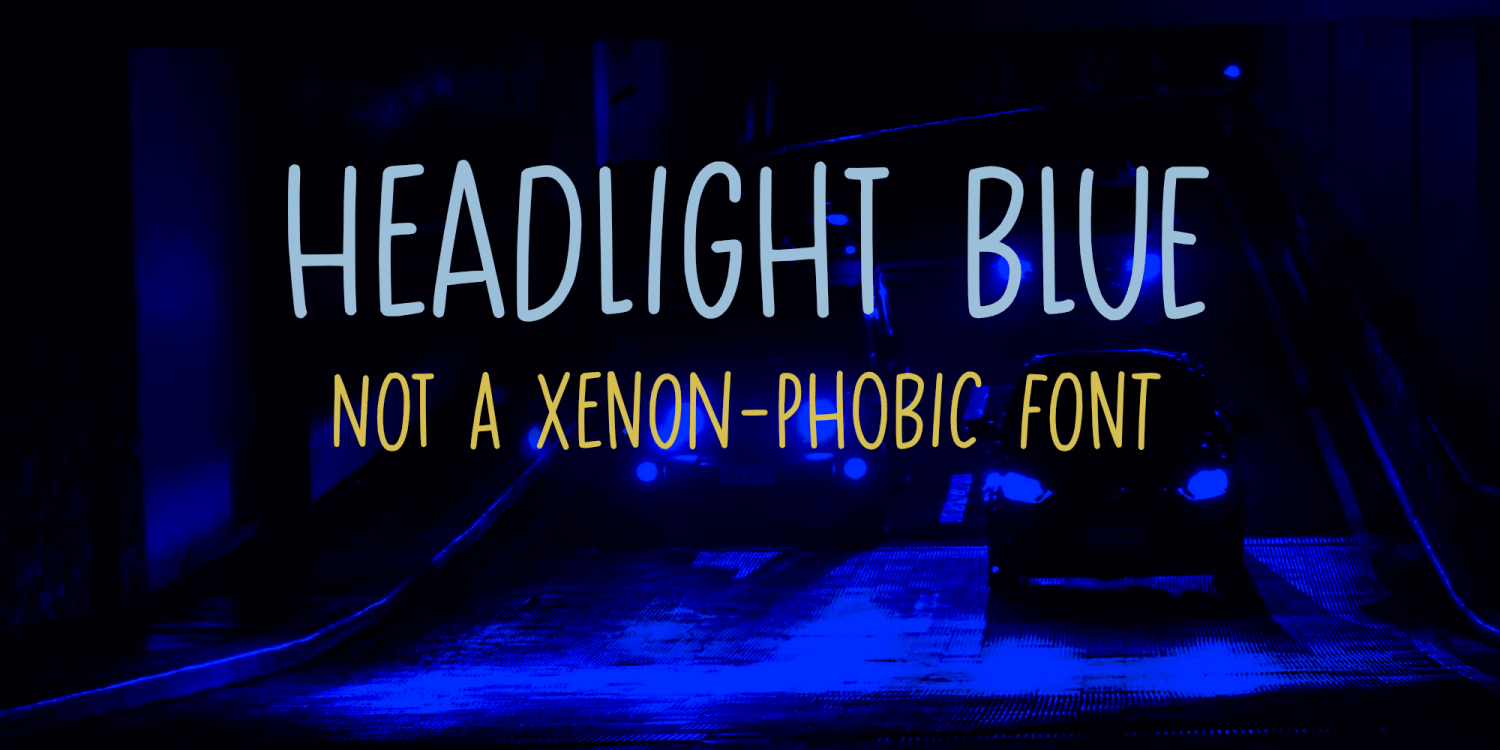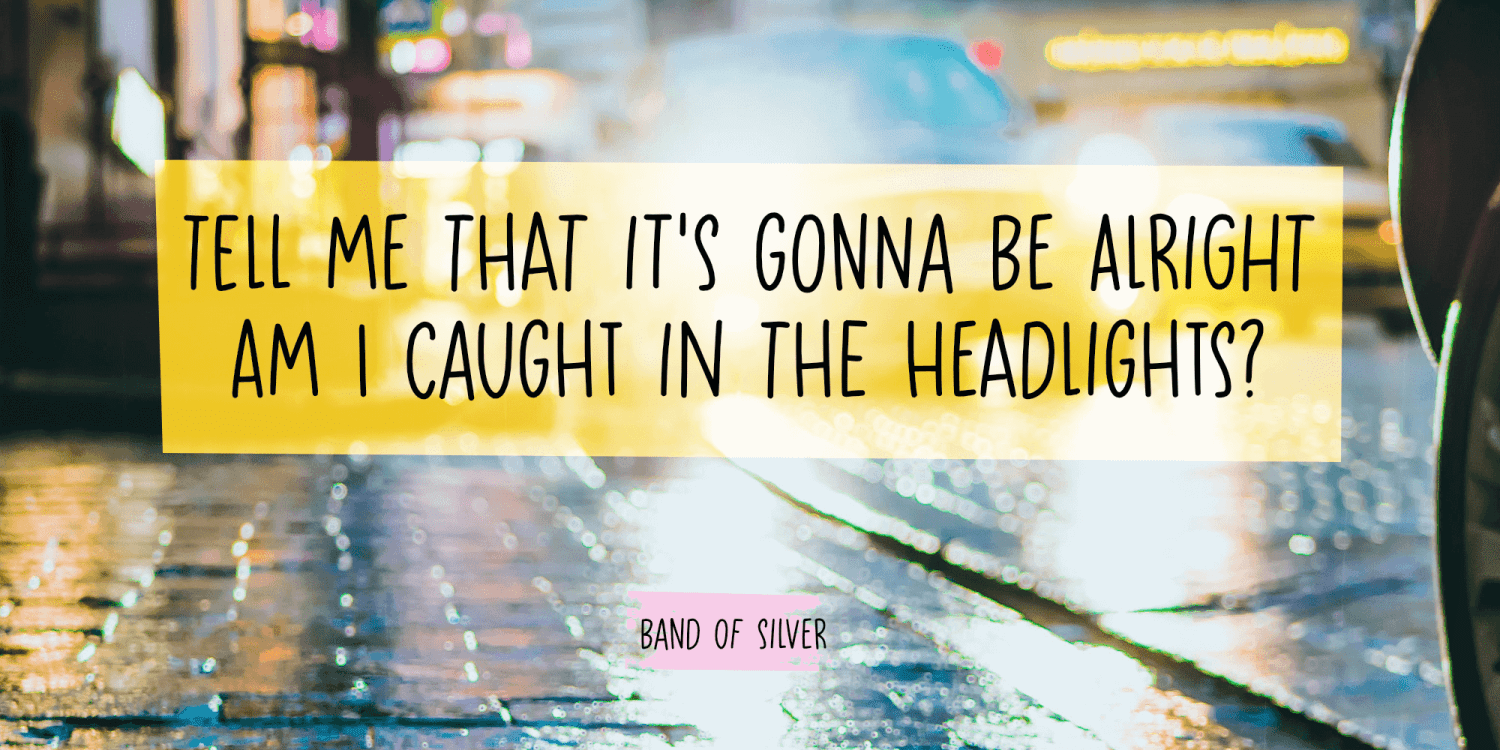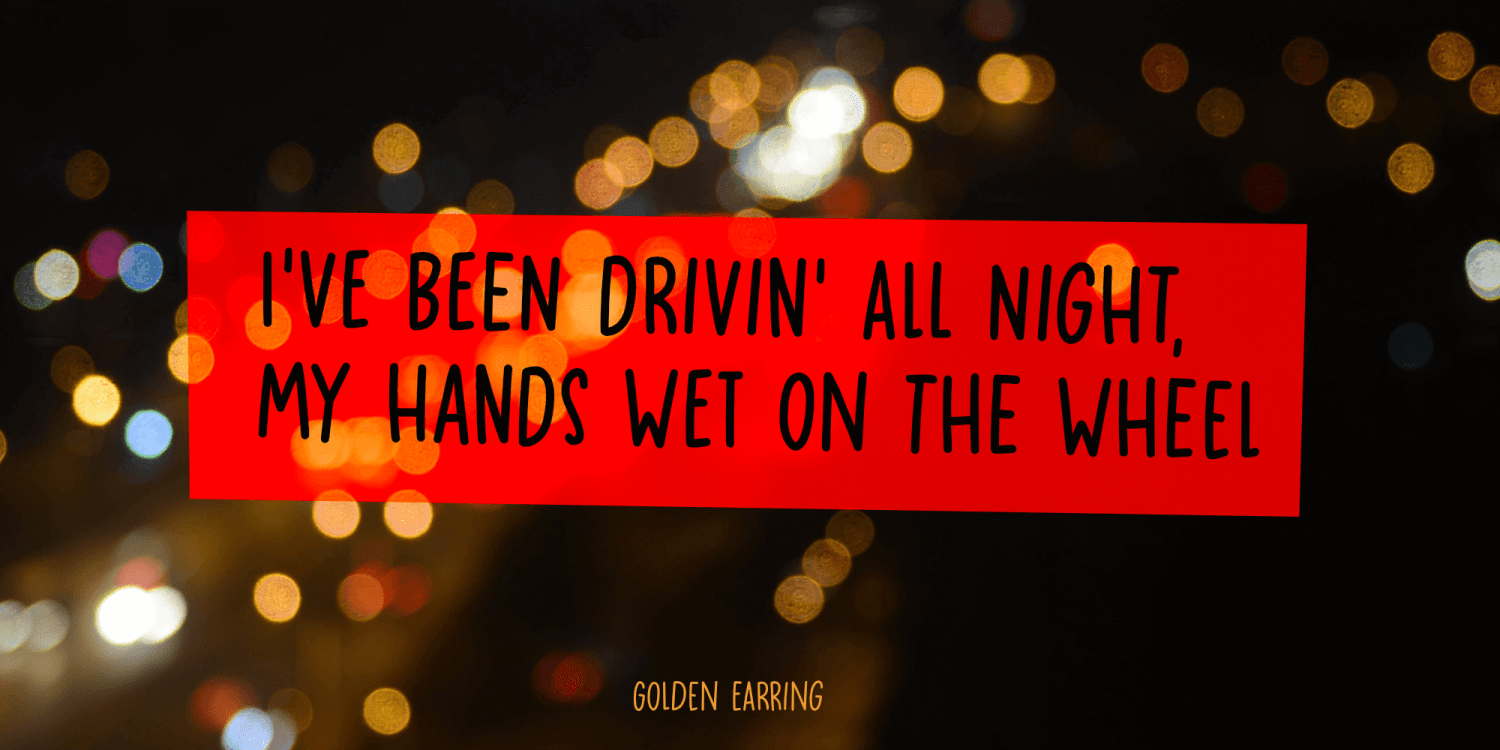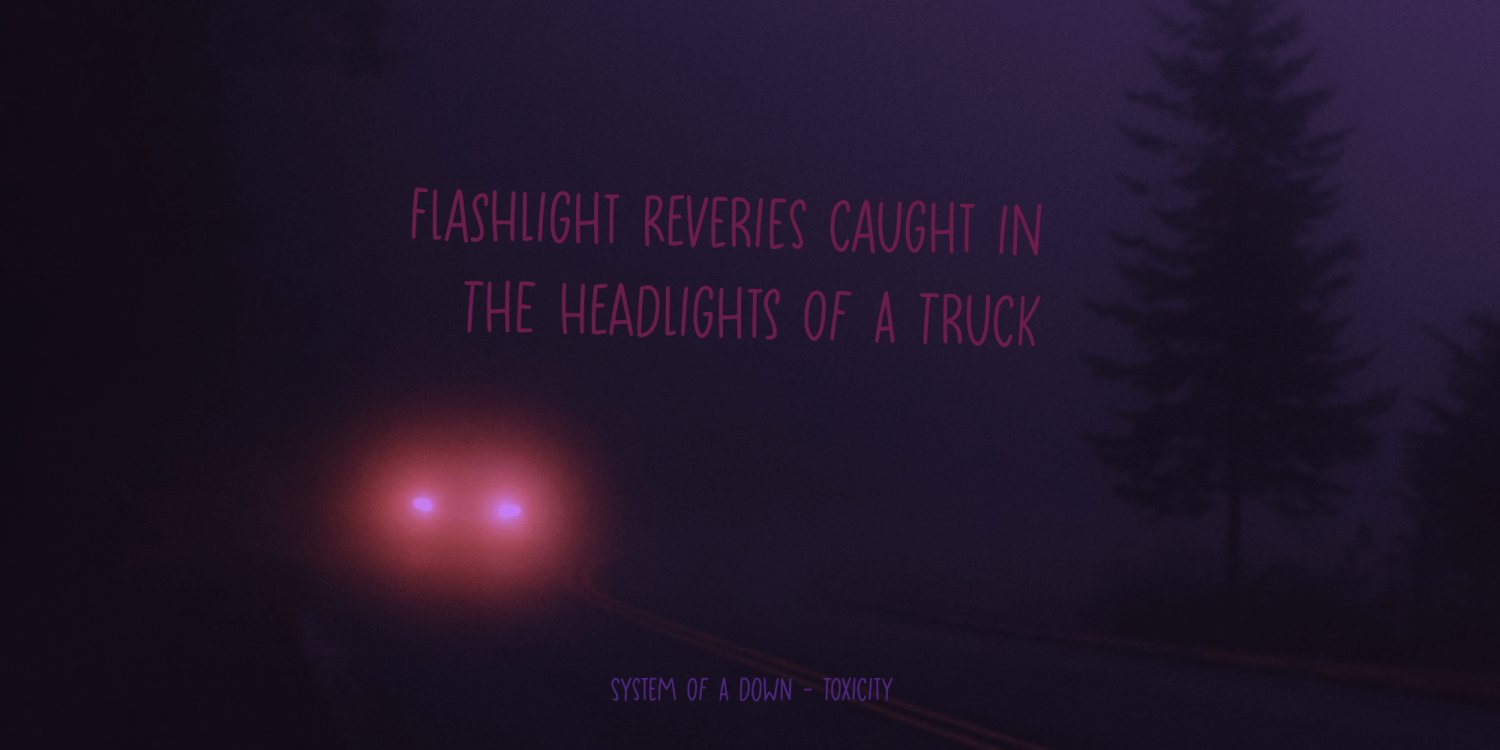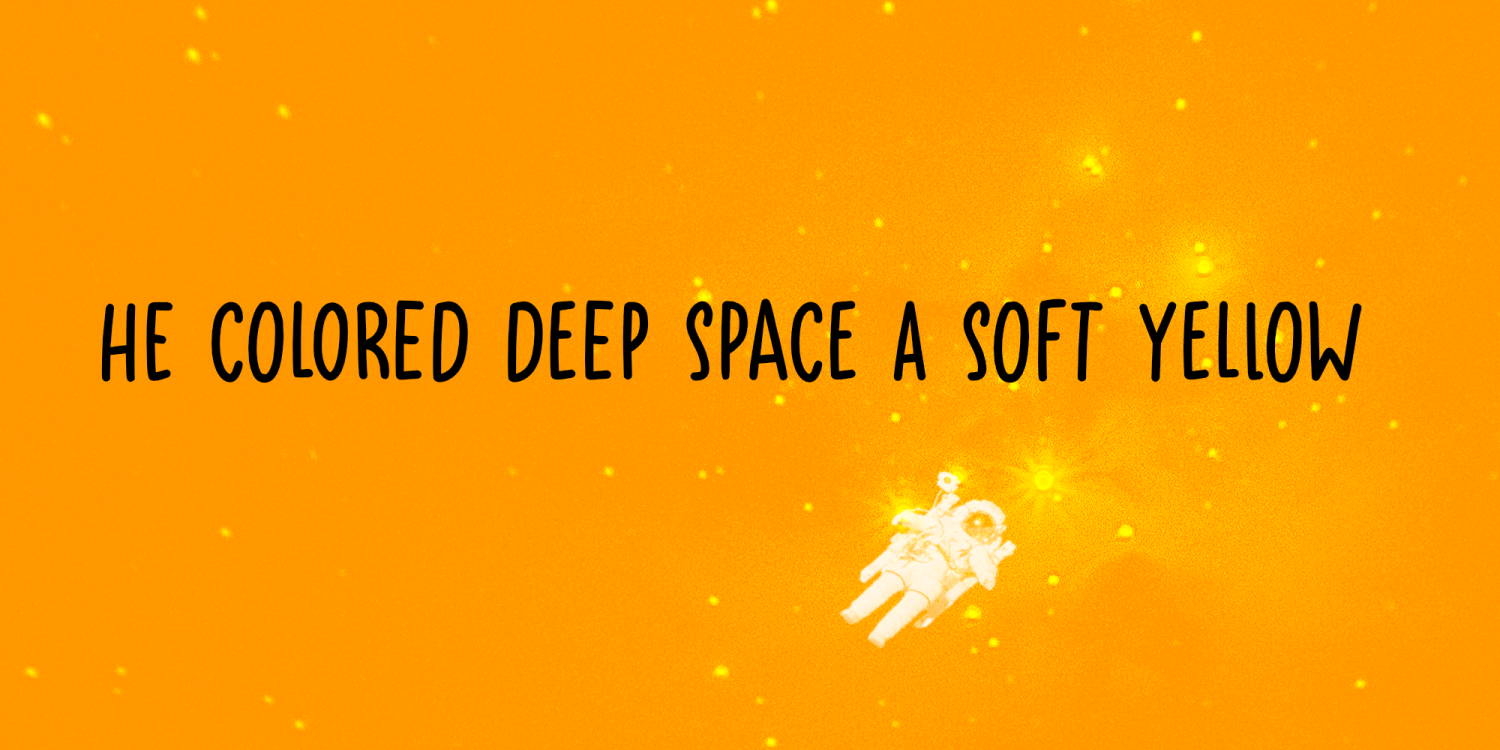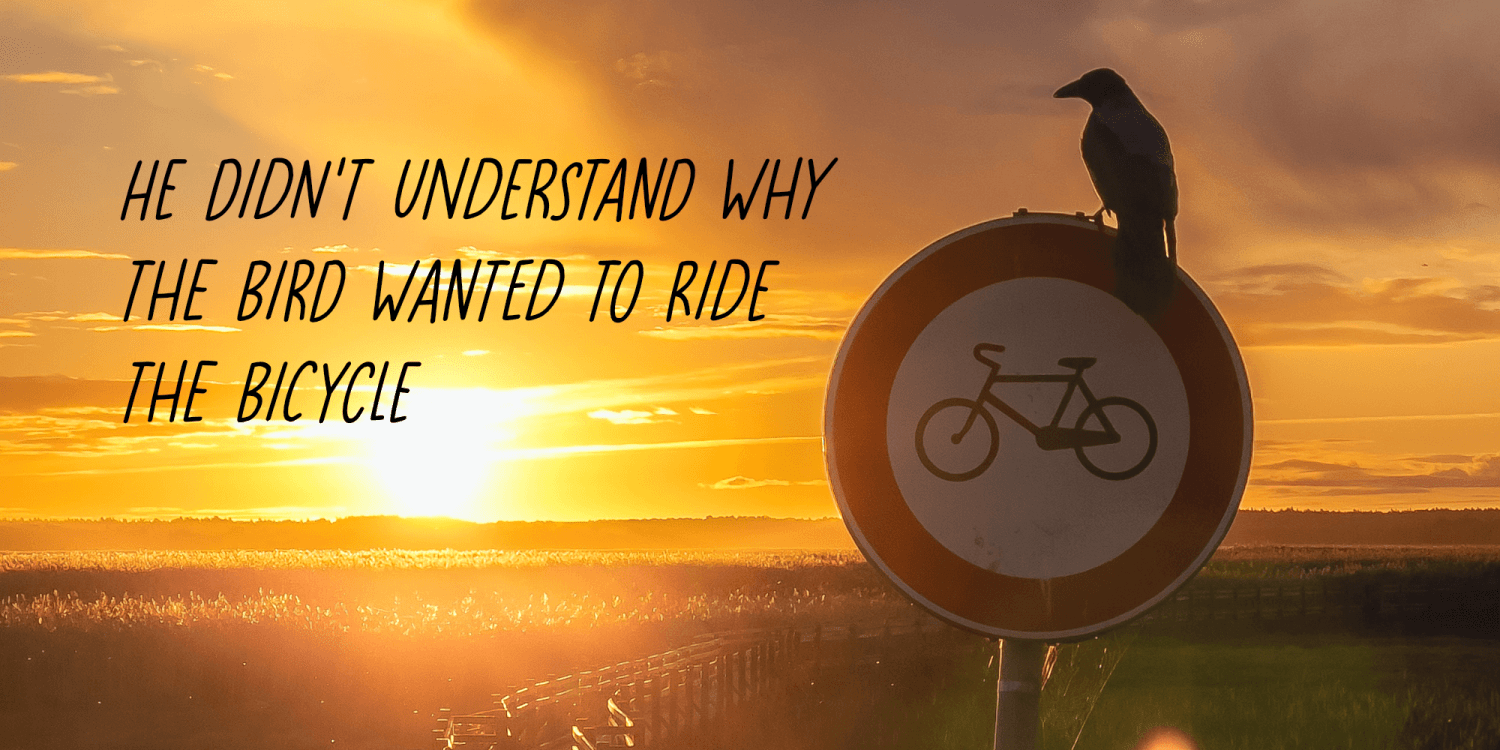
Headlight Blue
Several roads have been closed around my village, so I need to drive alongside narrow country roads ro get my groceries done. The roads are so narrow that two cars cannot pass, so you need to use the (muddy) kerbs. A lot of cars these days have Xenon lights and they shine really bright and blue. I am non xenon-phobic, but I can tell you that the ‘old’ yellowish headlight were softer on the eyes, especially when you’re trying to navigate narrow country roads!
Yes, I know, a long story leading nowhere, but a little personal story (in my opinion) is better than a boring text full of technical bla bla. A font is a font after all and I don’t need to explain what it looks like, because you can see that for yourself!
Headlight Blue is a handmade, all caps display font. It comes with all the trimmings, including two sets of alternates that cycle as you type.
Headlight Blue by Hanoded